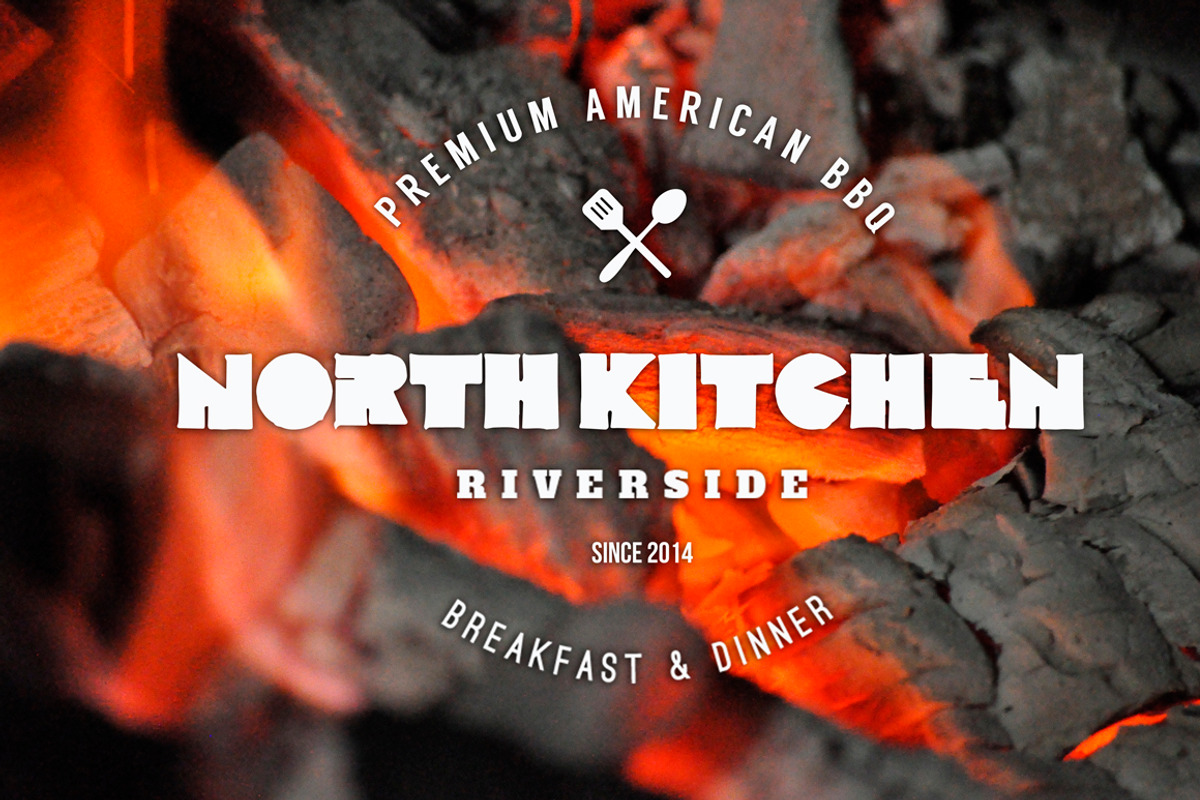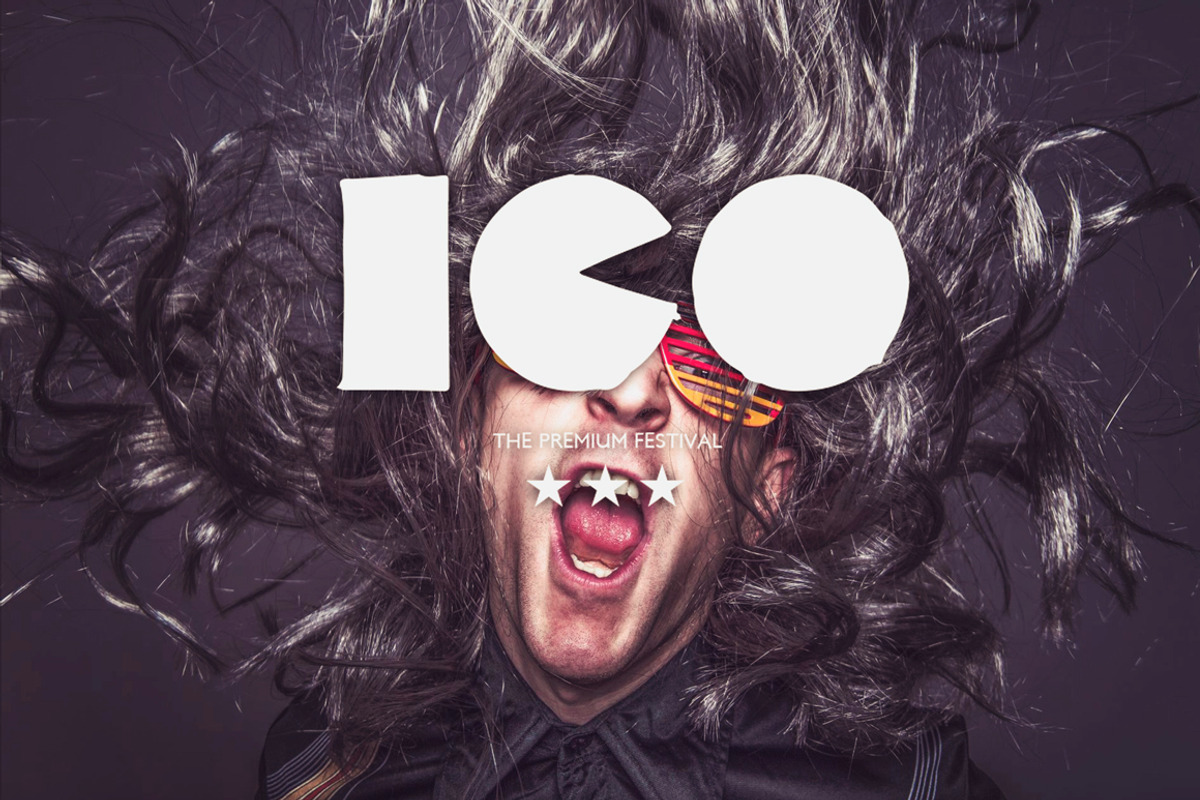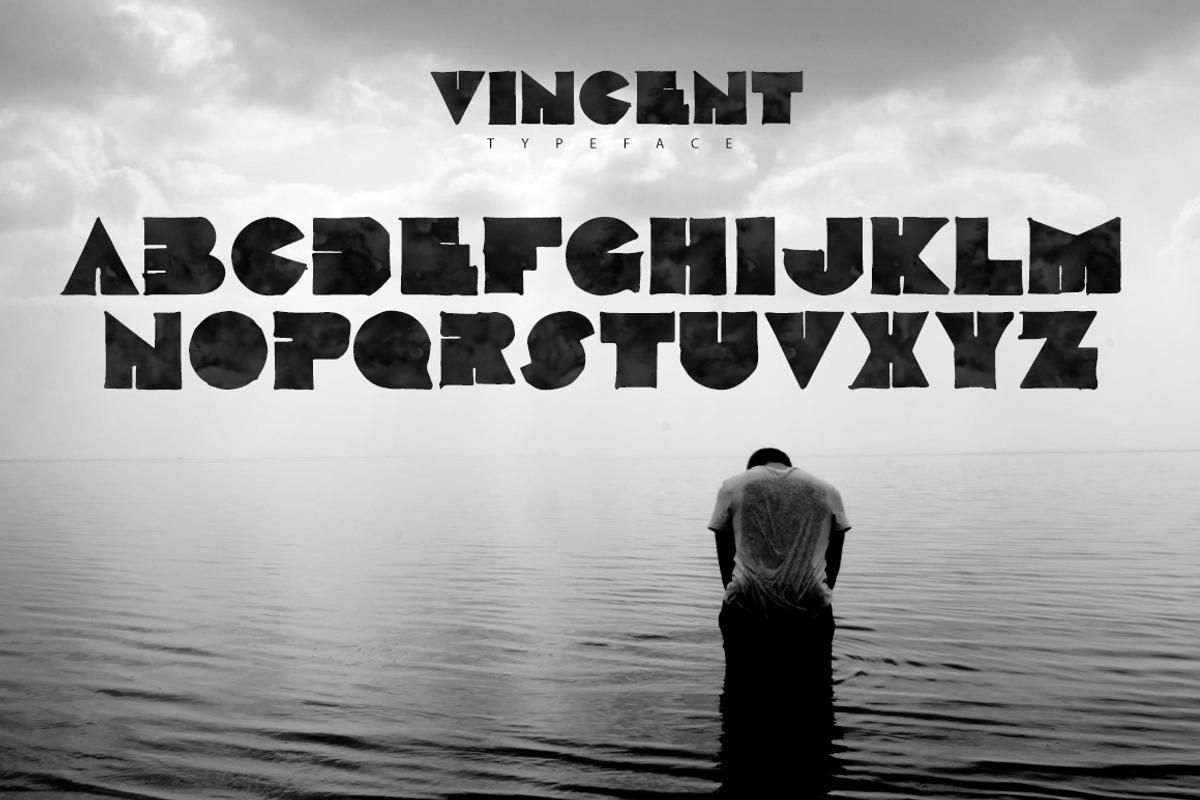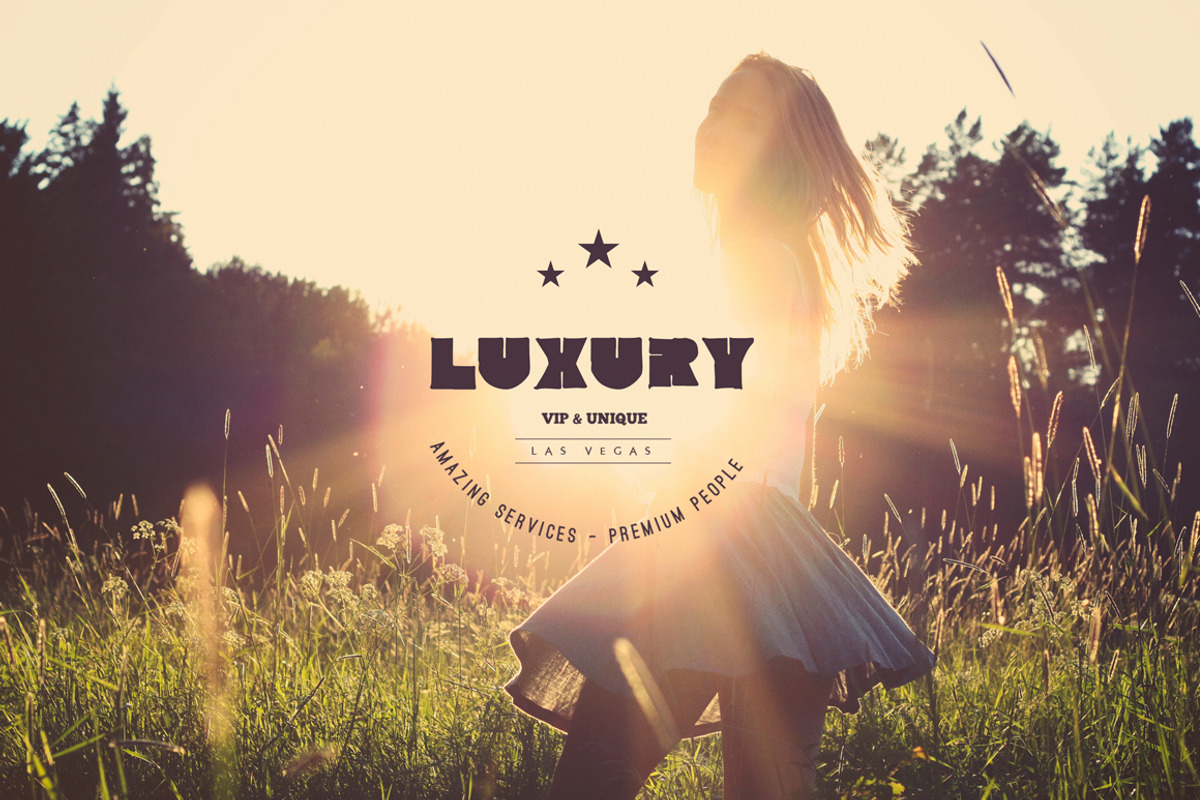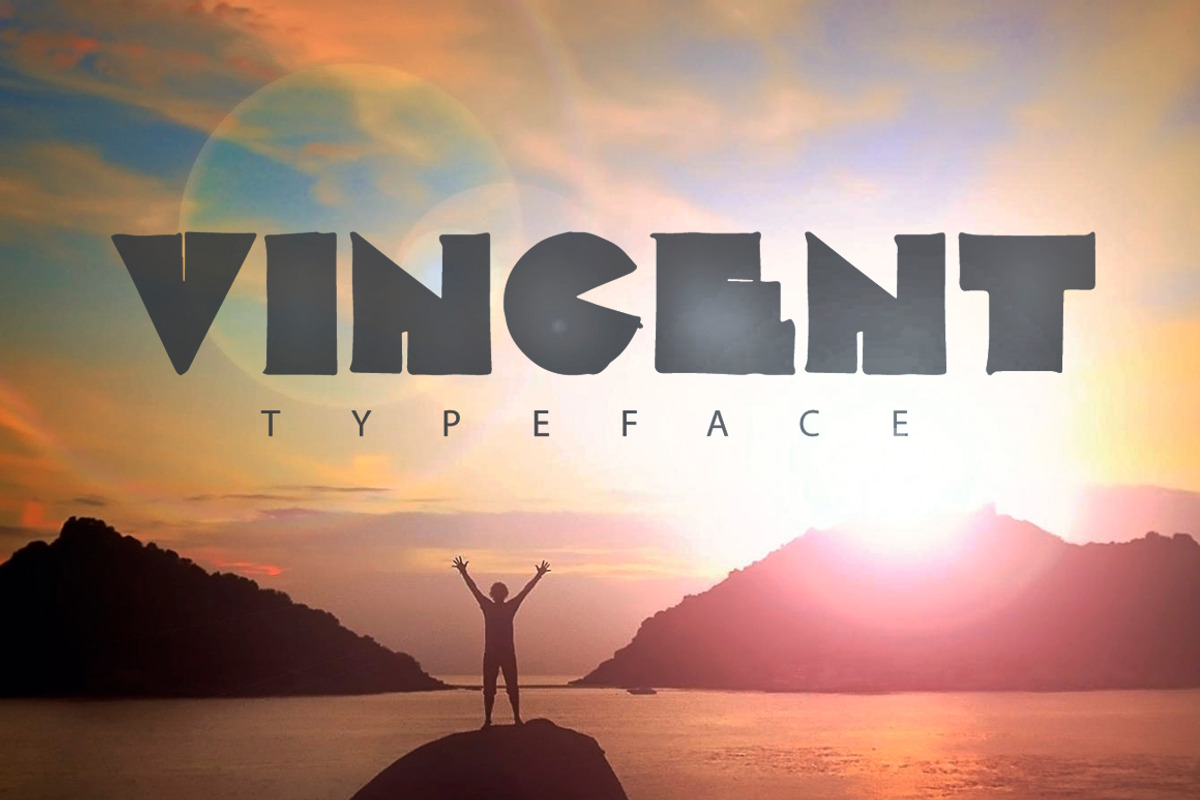
Vincent Grunge Font
Vincent Grunge Font by SmartDesigns is a font selected for branding, posters, packaging, typography.
Why Vincent Grunge Font is worth a look
Vincent Grunge Font by SmartDesigns fits naturally into Branding, posters, packaging, typography.